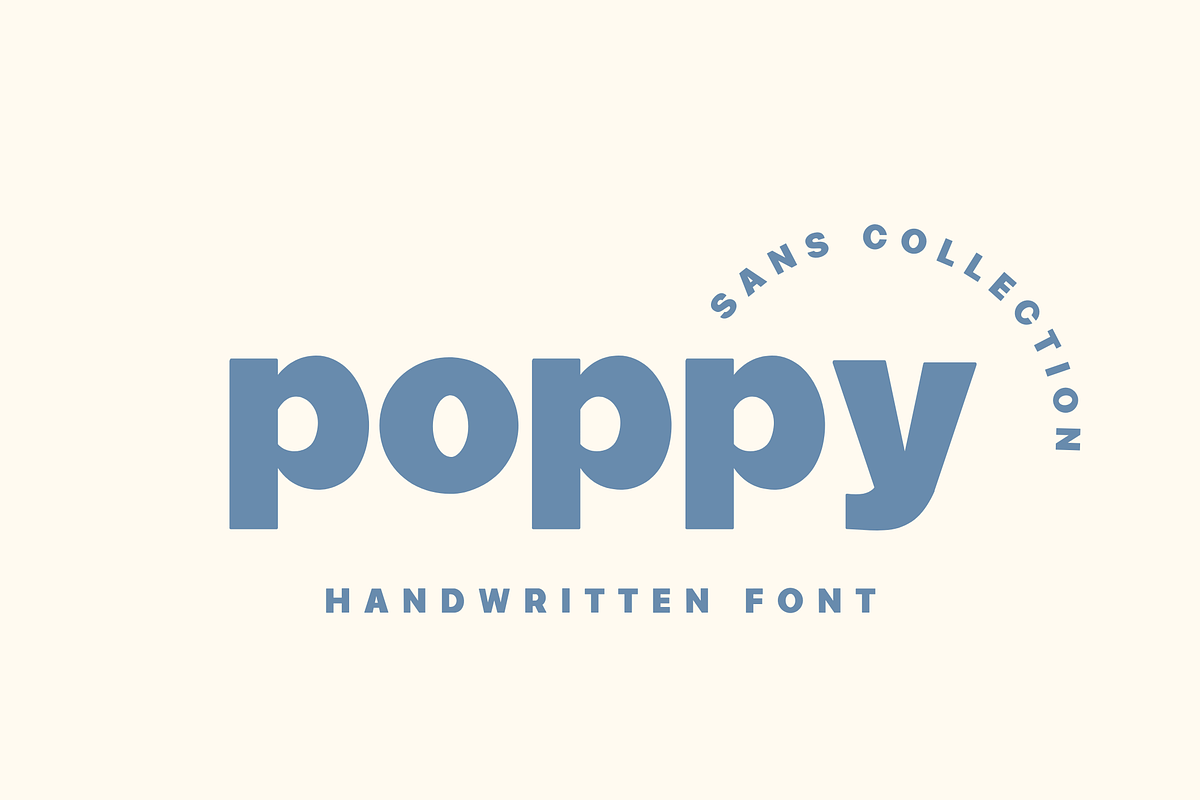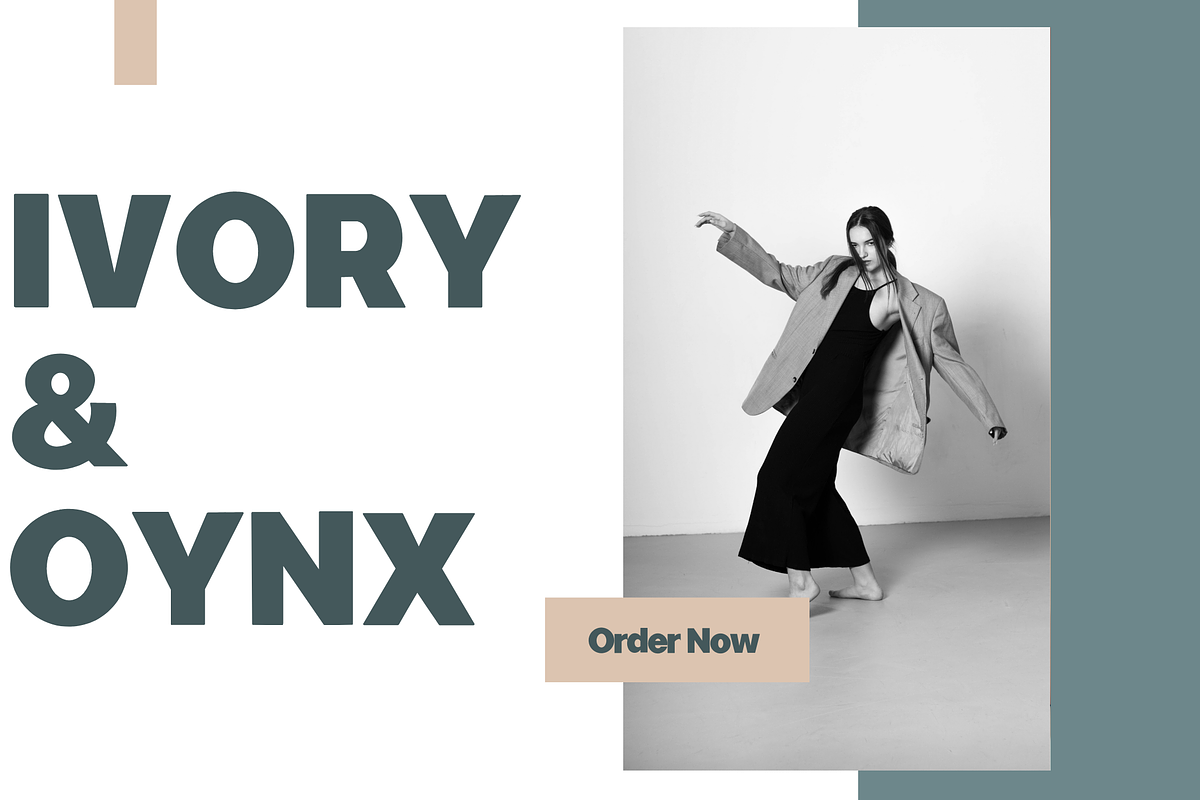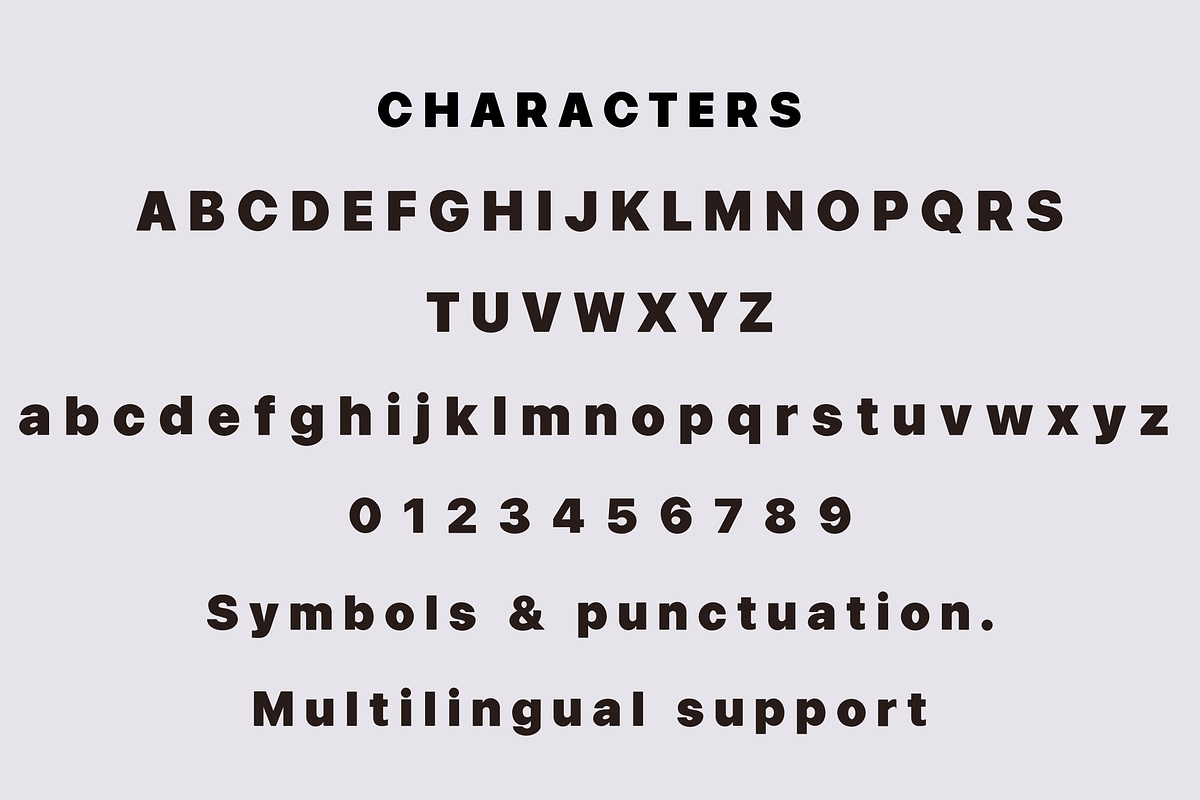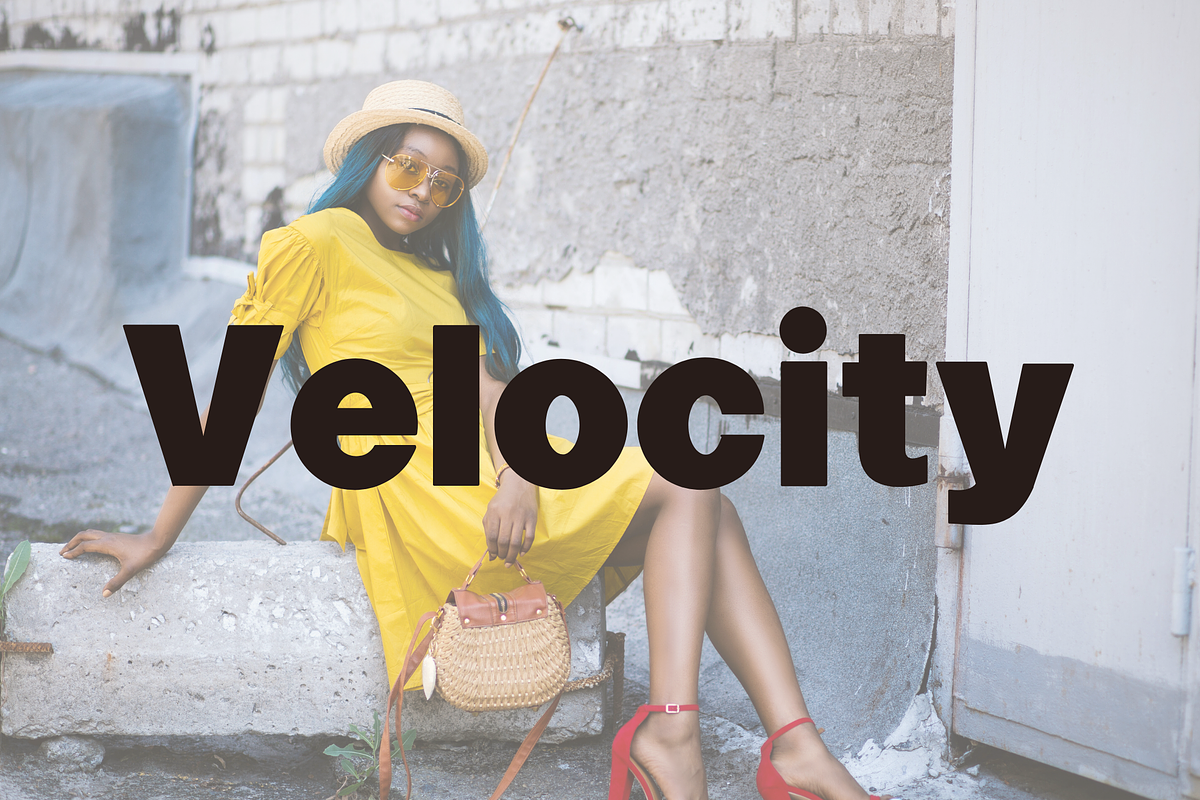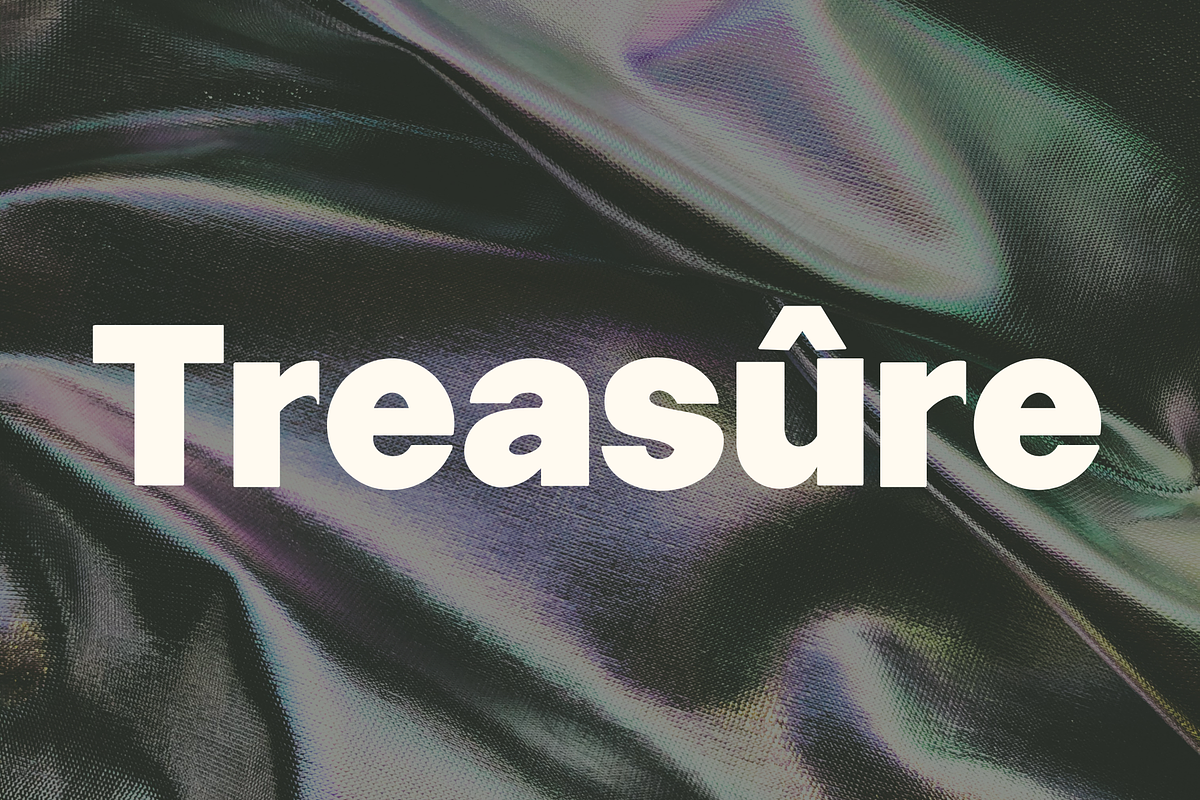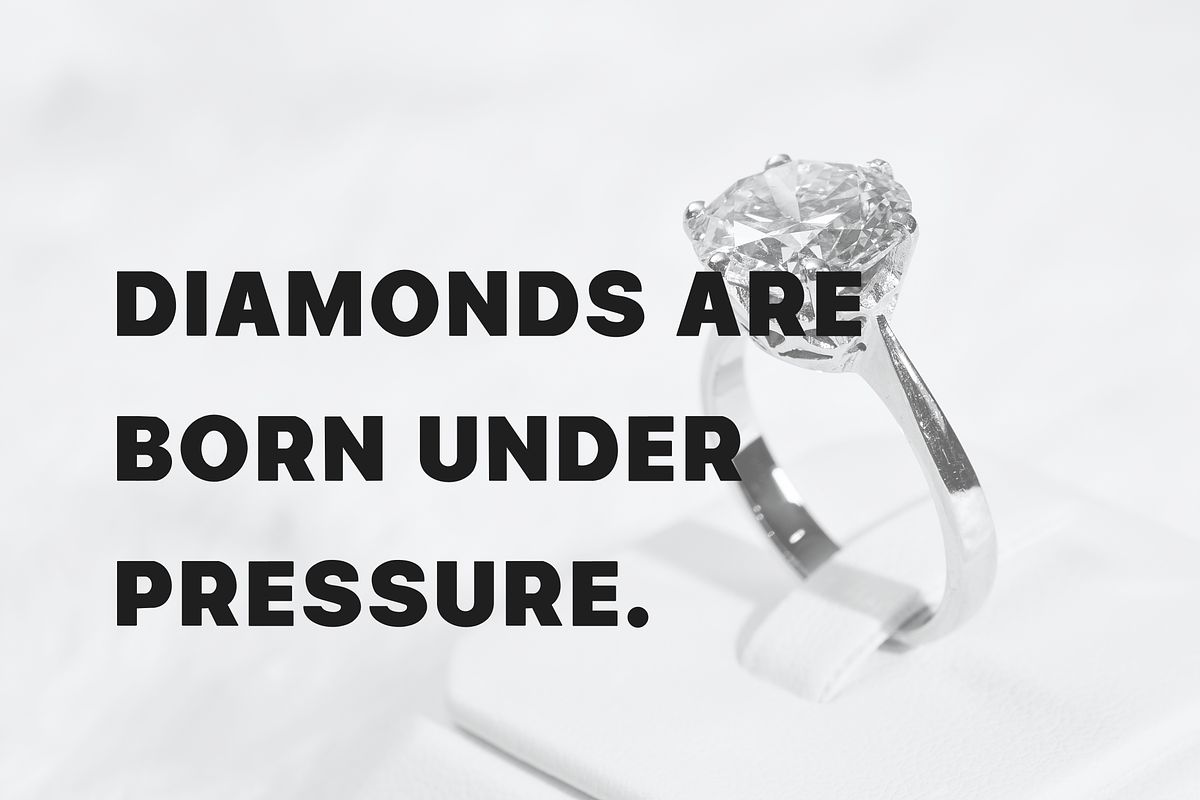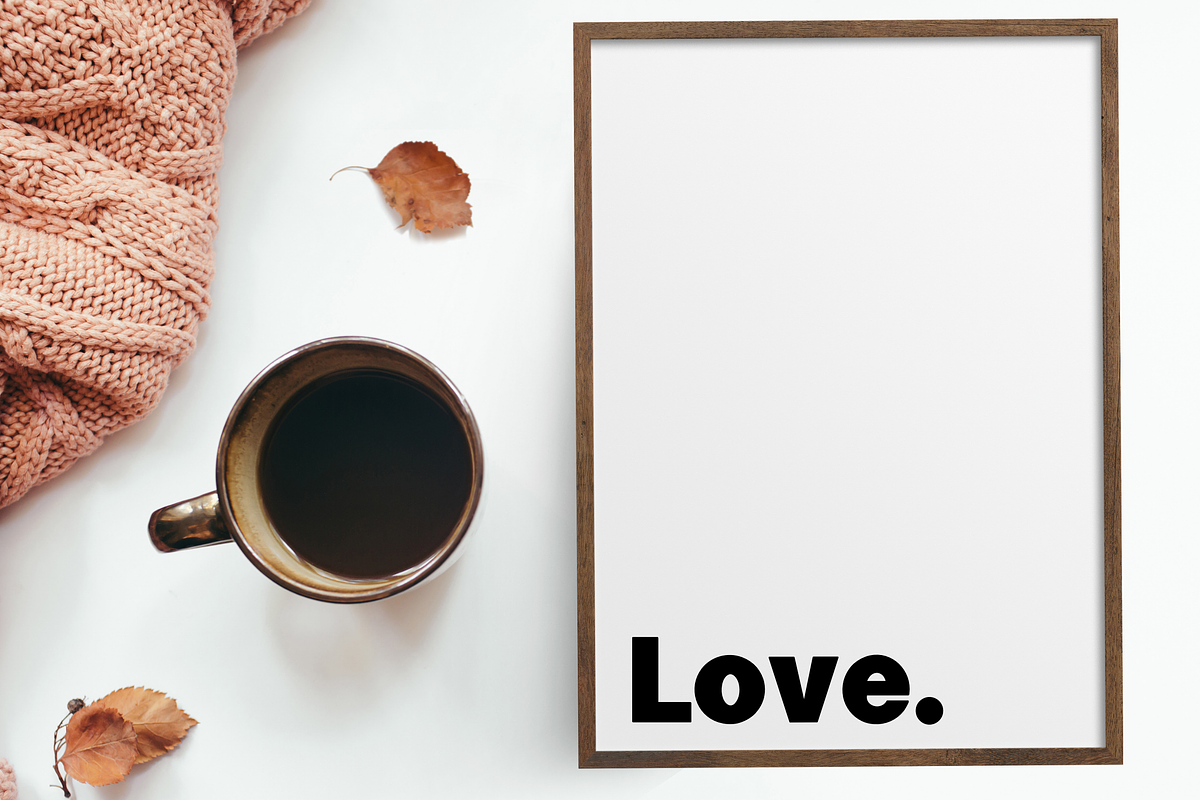
Poppy - handwritten Bold sans seri
Poppy is a Bold sans serif font.
This font is perfect for advertising, headings, blogs, logos, branding and more!
Features: Uppercase, Lowercase, Numbers & punctuation & Multilingual support.